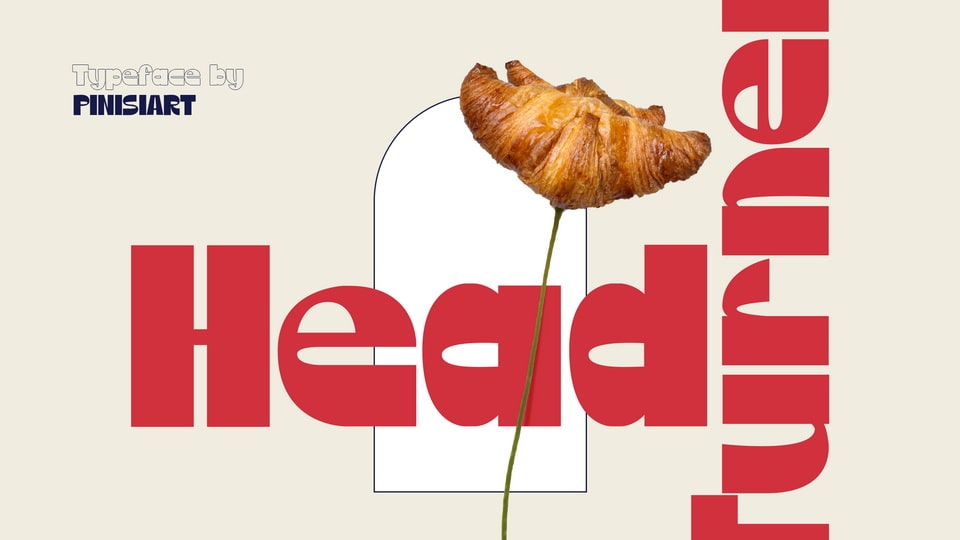
Download Head Turner font, a cool display typeface. The bold and attention-grabbing shape font will make all head-turning for a second and convincing look to what it’s written.